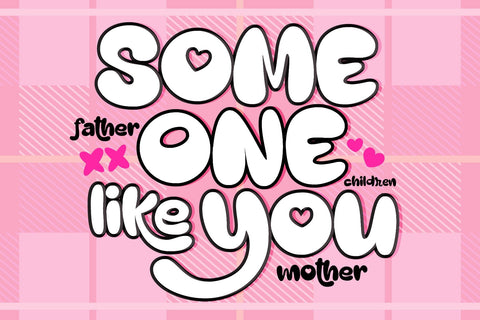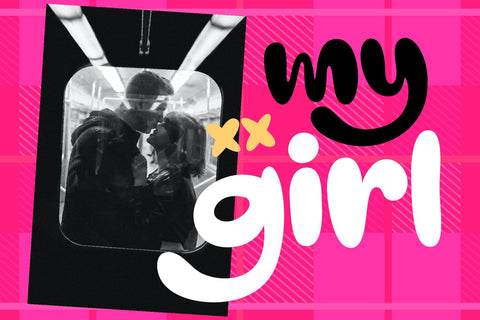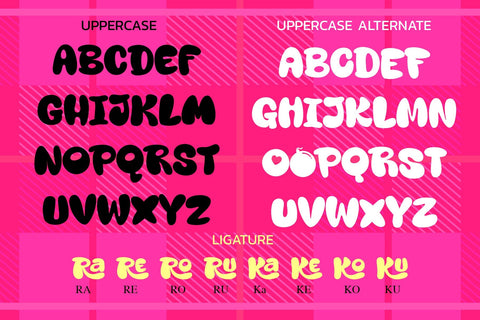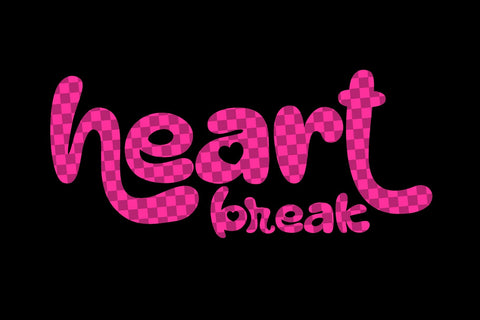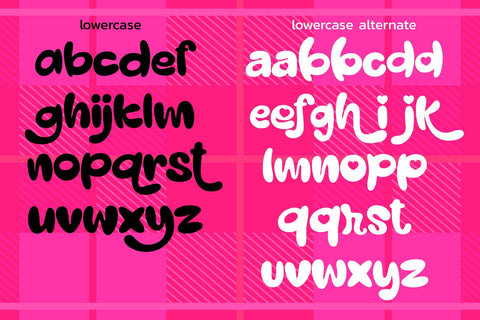
LoveXXBomb
Encapsulating a vibrant energy and genuine personality, LoveXXBomb is a distinctively stylish display font. Its bubbly aesthetics sprinkled with a hint of urban edge make it an ideal selection for Valentine-themed projects, street-style fashion pursuits, or T-shirt designs. This font also seamlessly enhances the visual appeal in sportswear branding, logos, and beyond. Capture the essence of playful authenticity with LoveXXBomb, your unique design companion.